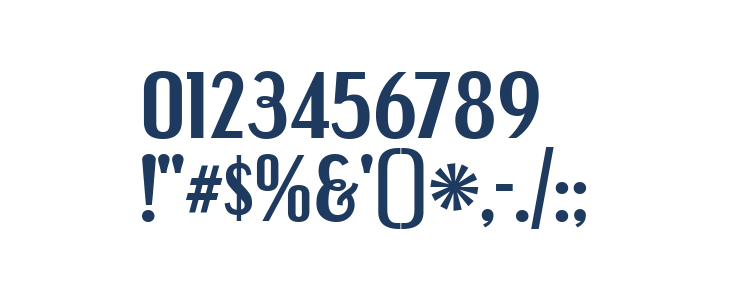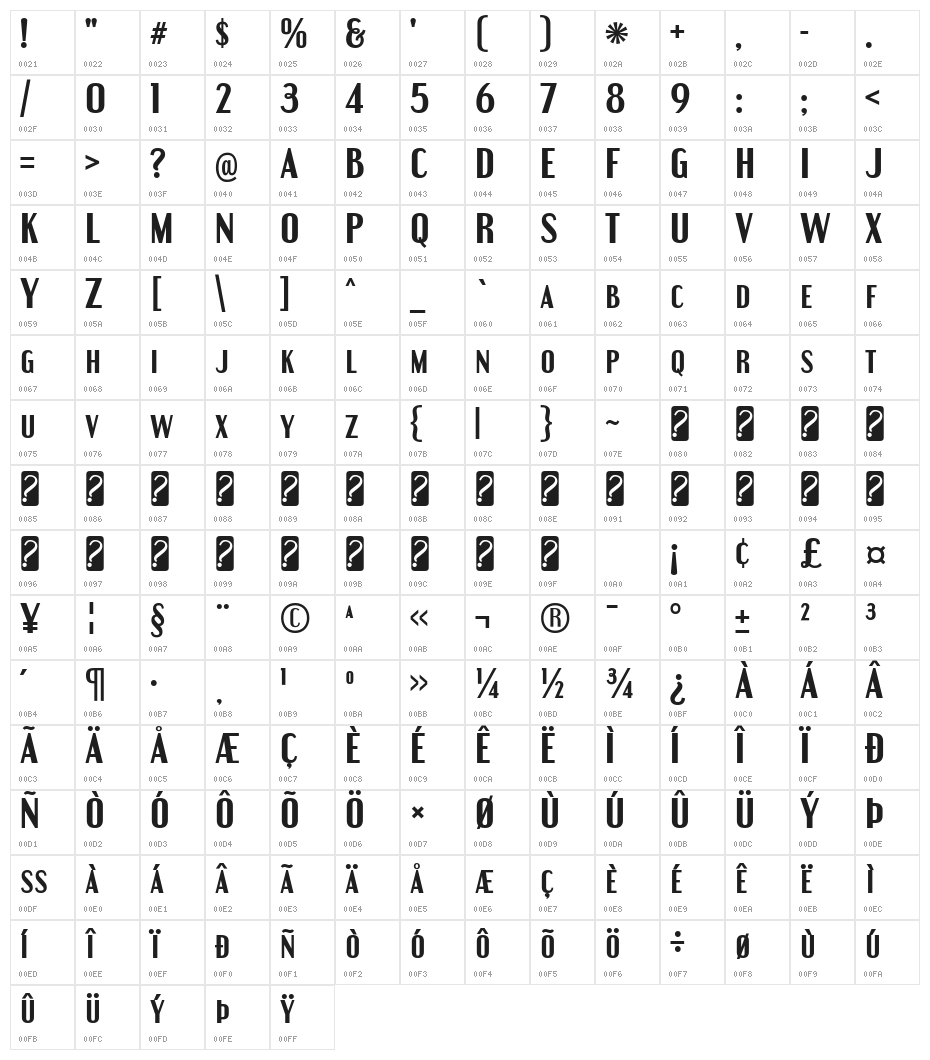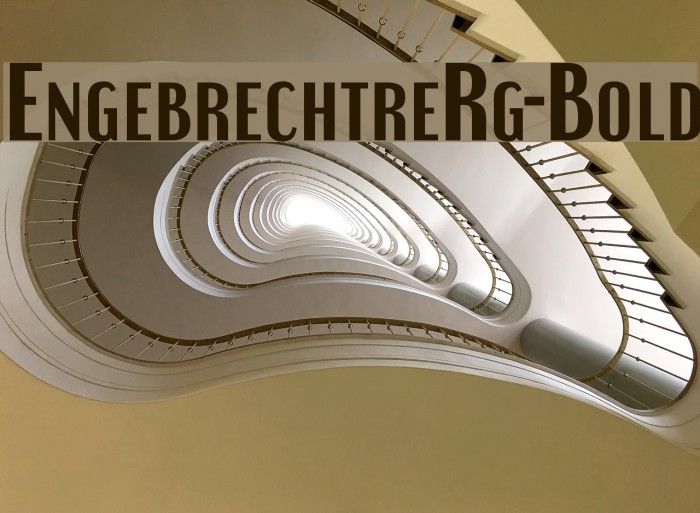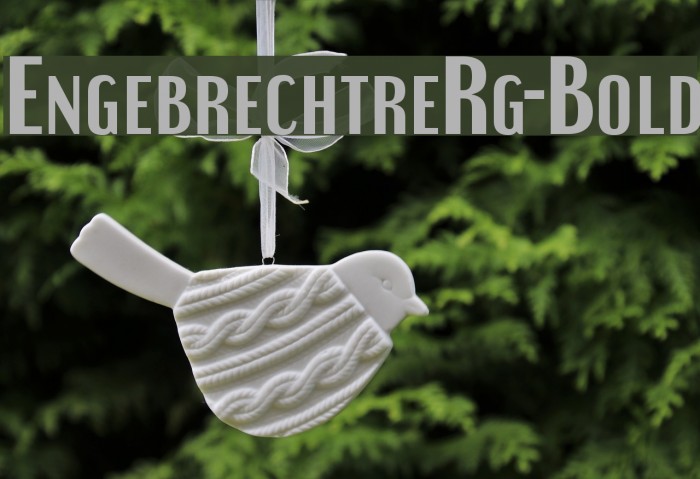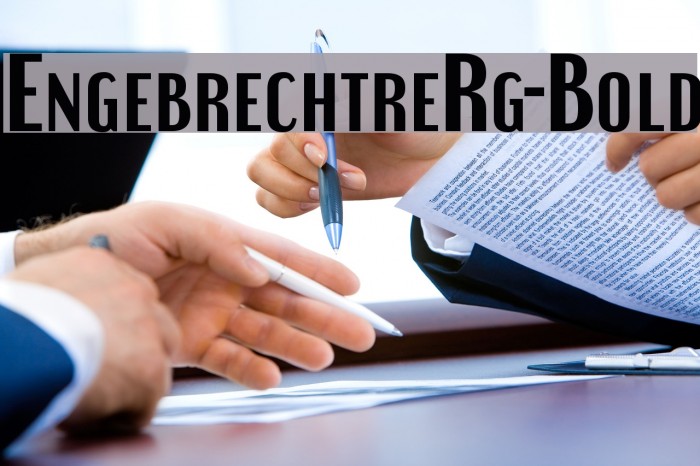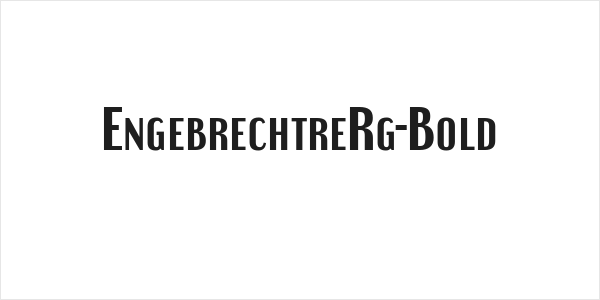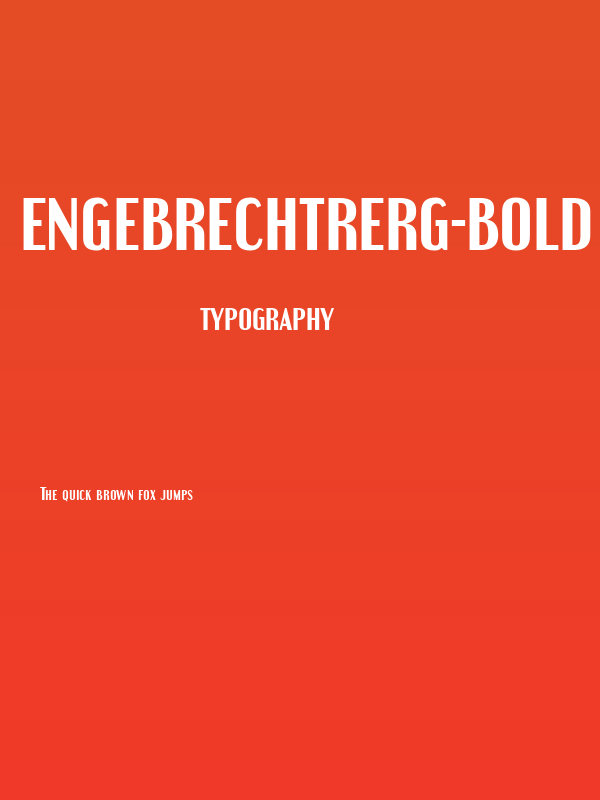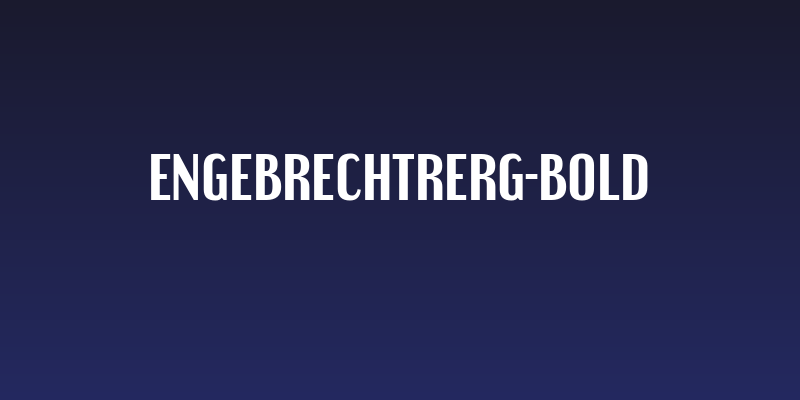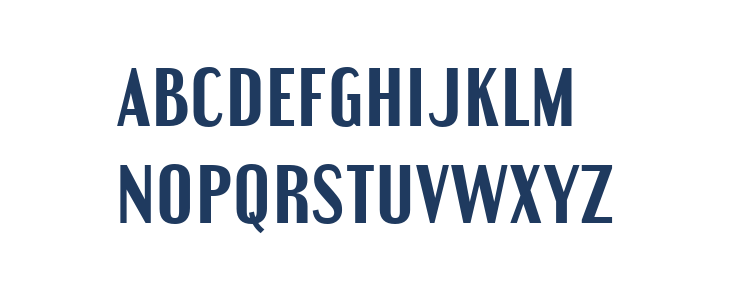
EngebrechtreRg-Bold Font
EngebrechtreRg-Bold Description
This font exhibits a bold and striking appearance, characterized by its tall and narrow letterforms. The uppercase and lowercase letters maintain a consistent width, contributing to a uniform and cohesive look. The numbers are equally bold, ensuring readability and impact. Special characters are designed with the same boldness, making them stand out effectively. The overall style is modern and assertive, suitable for making a strong visual statement.
| Proposed Projects | Ideal for headlines, posters, branding materials, and any project requiring a strong visual impact. |